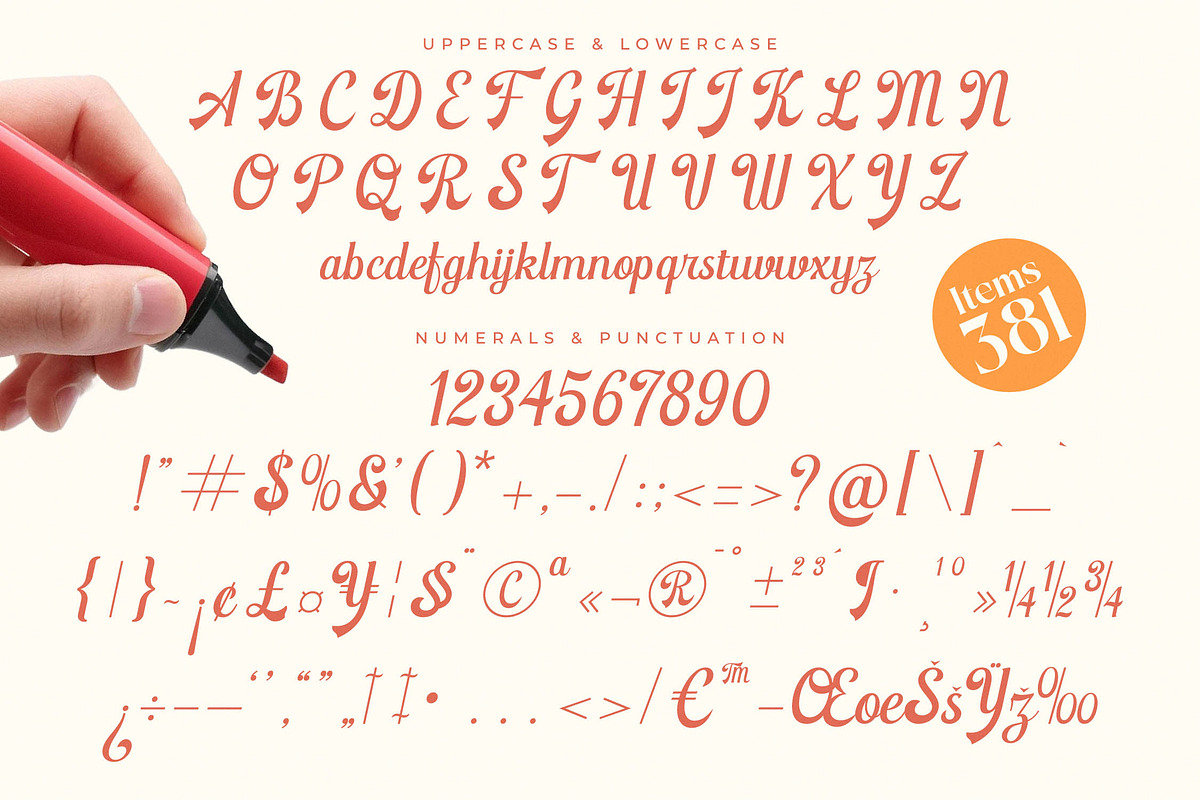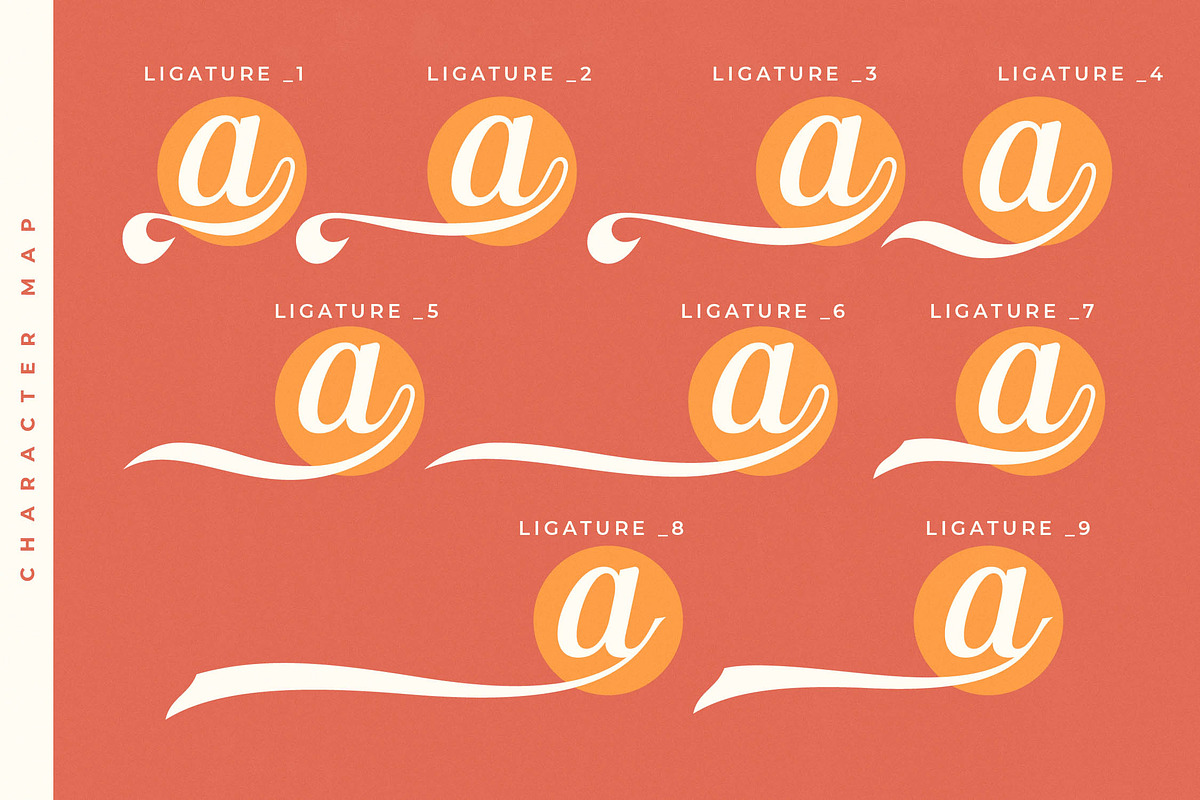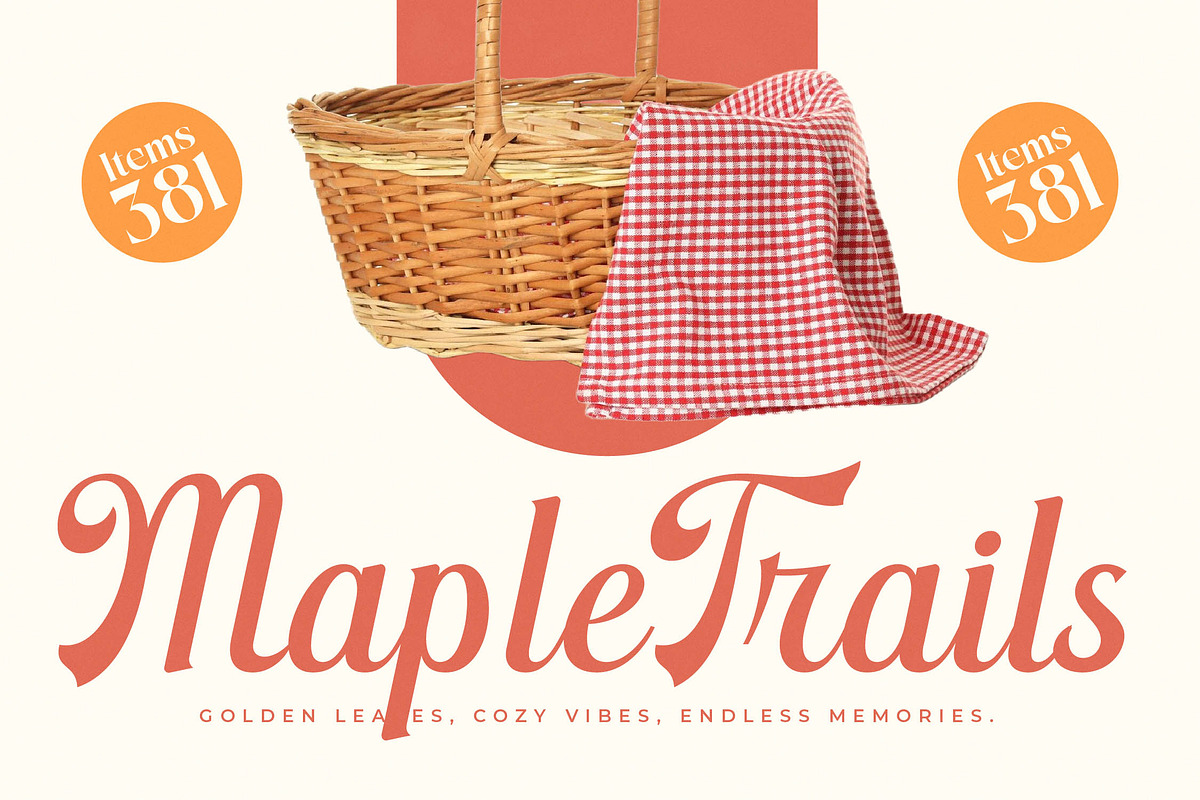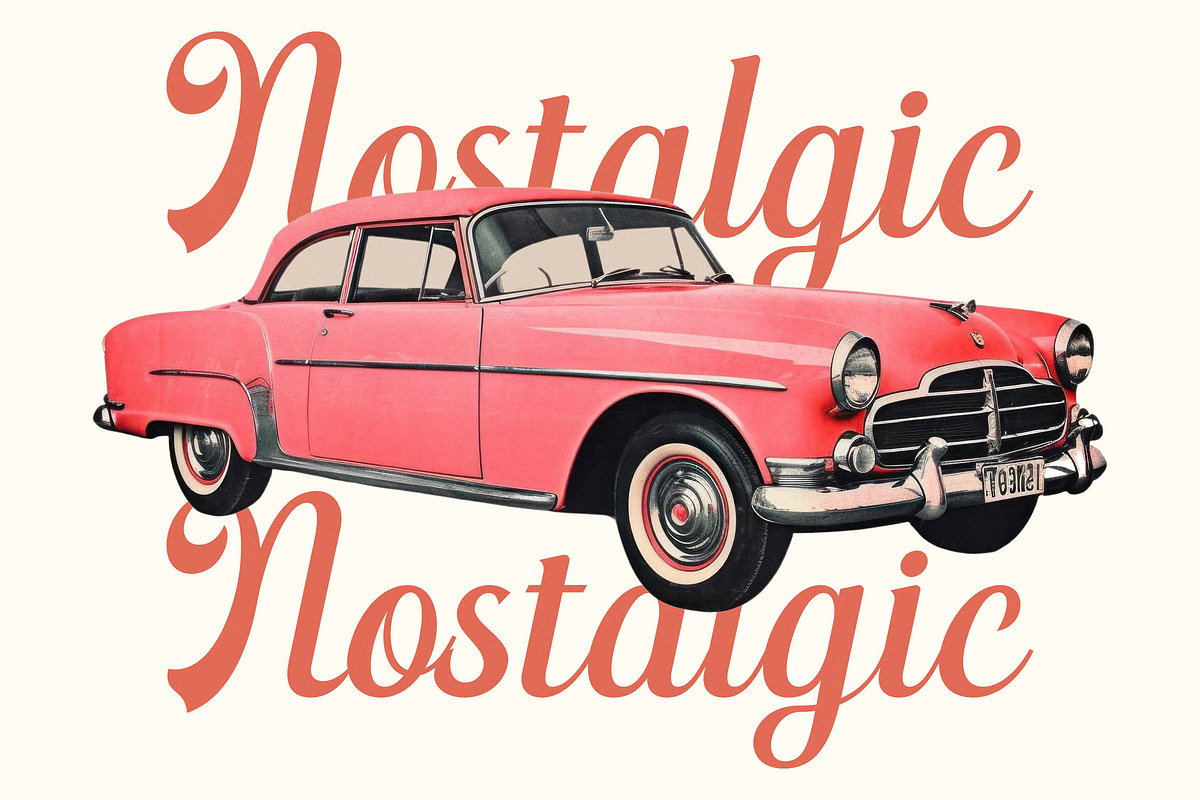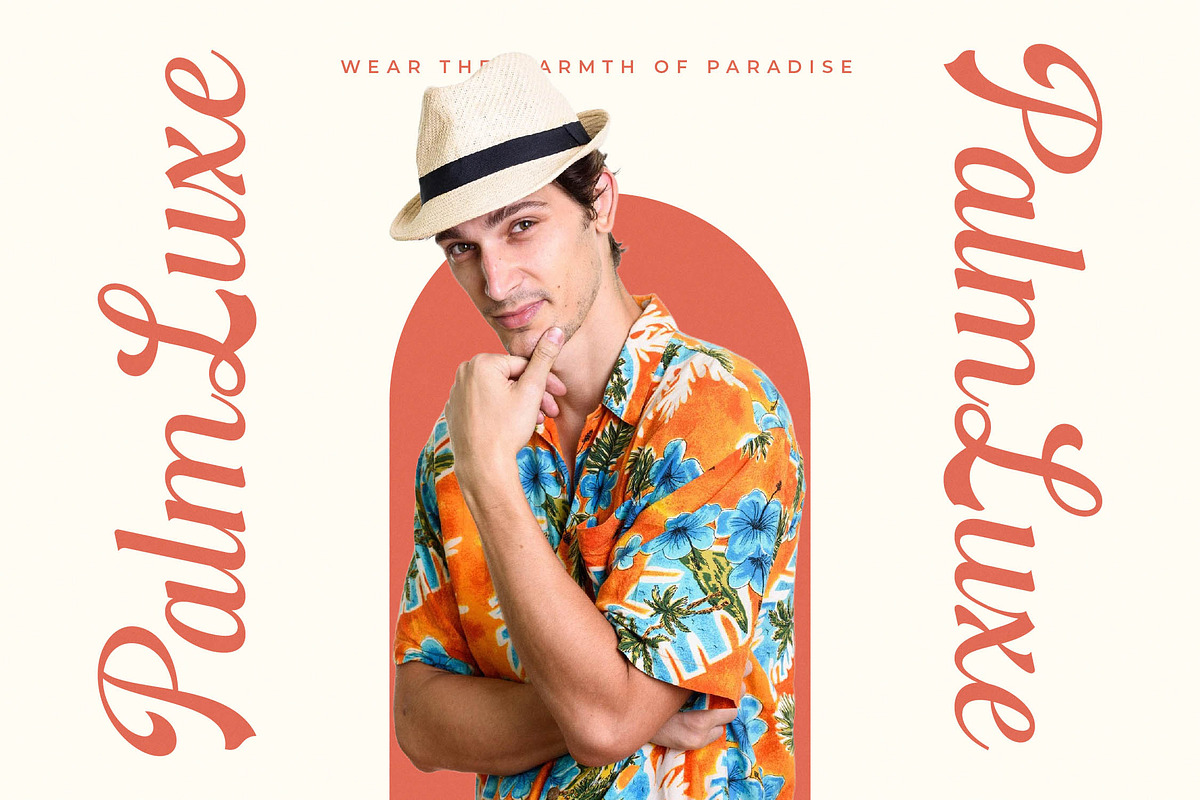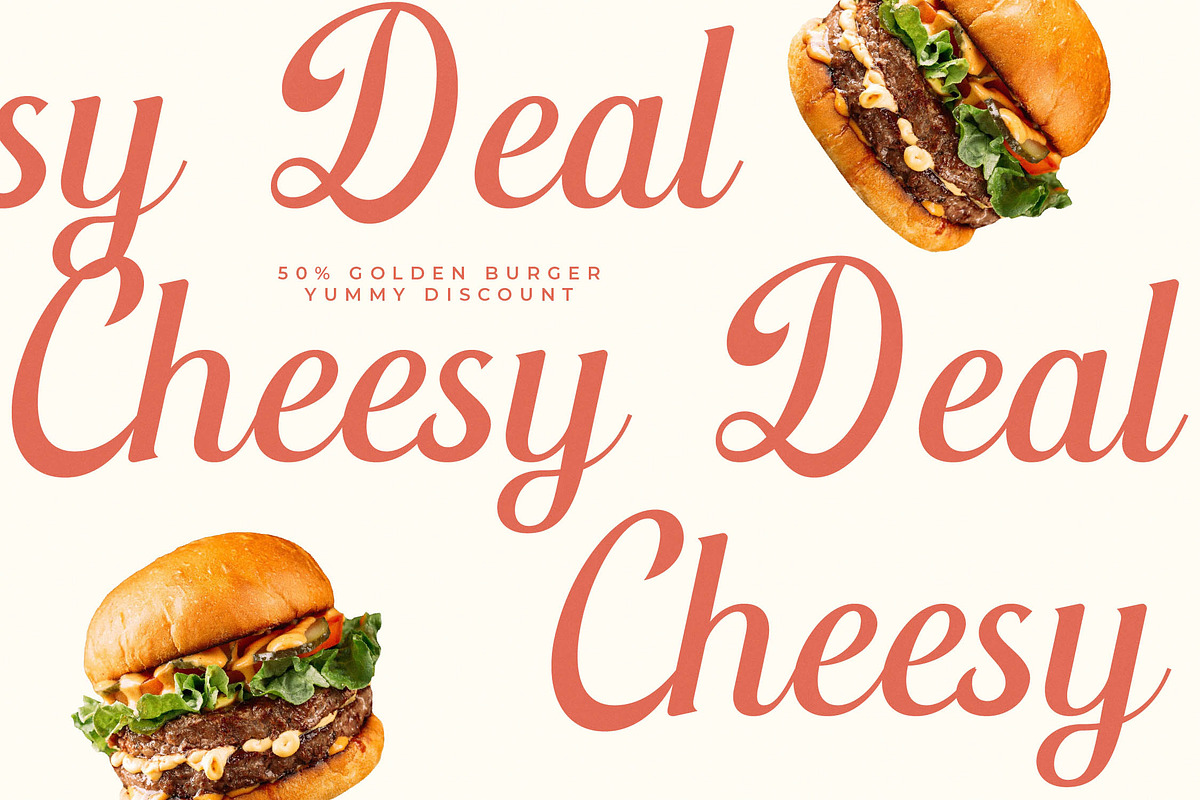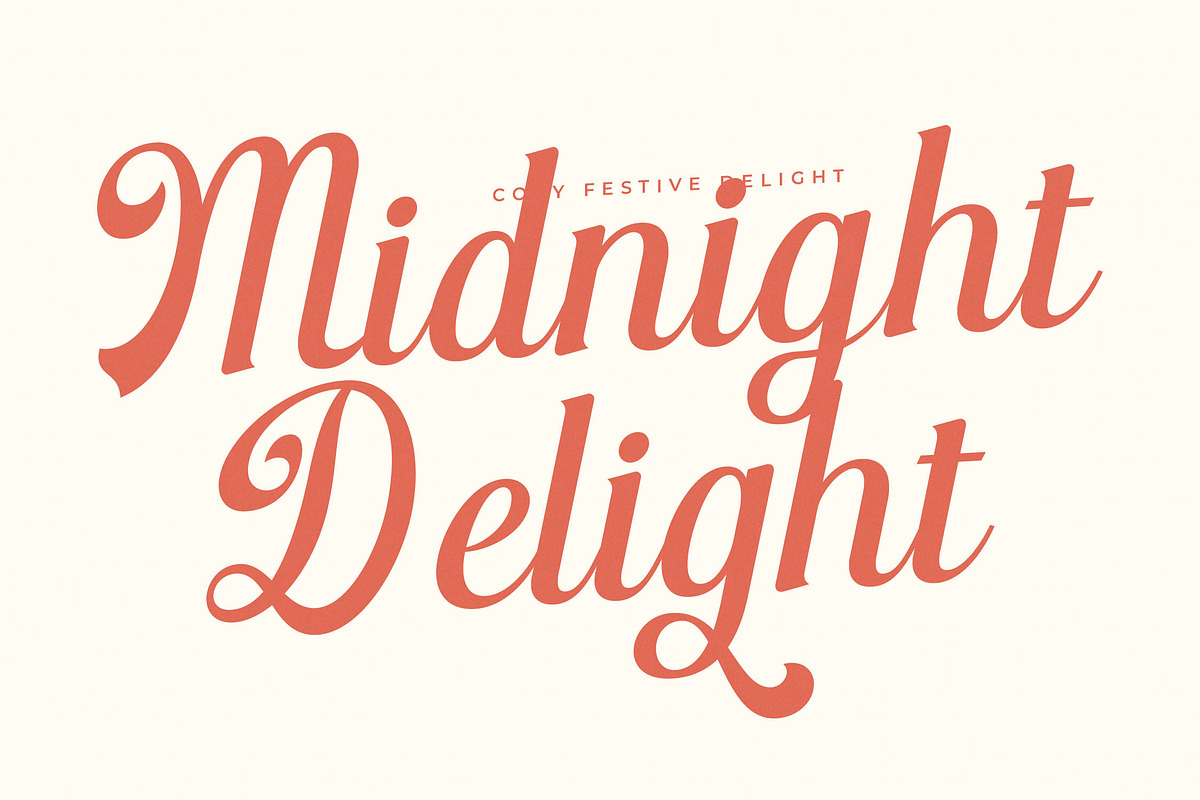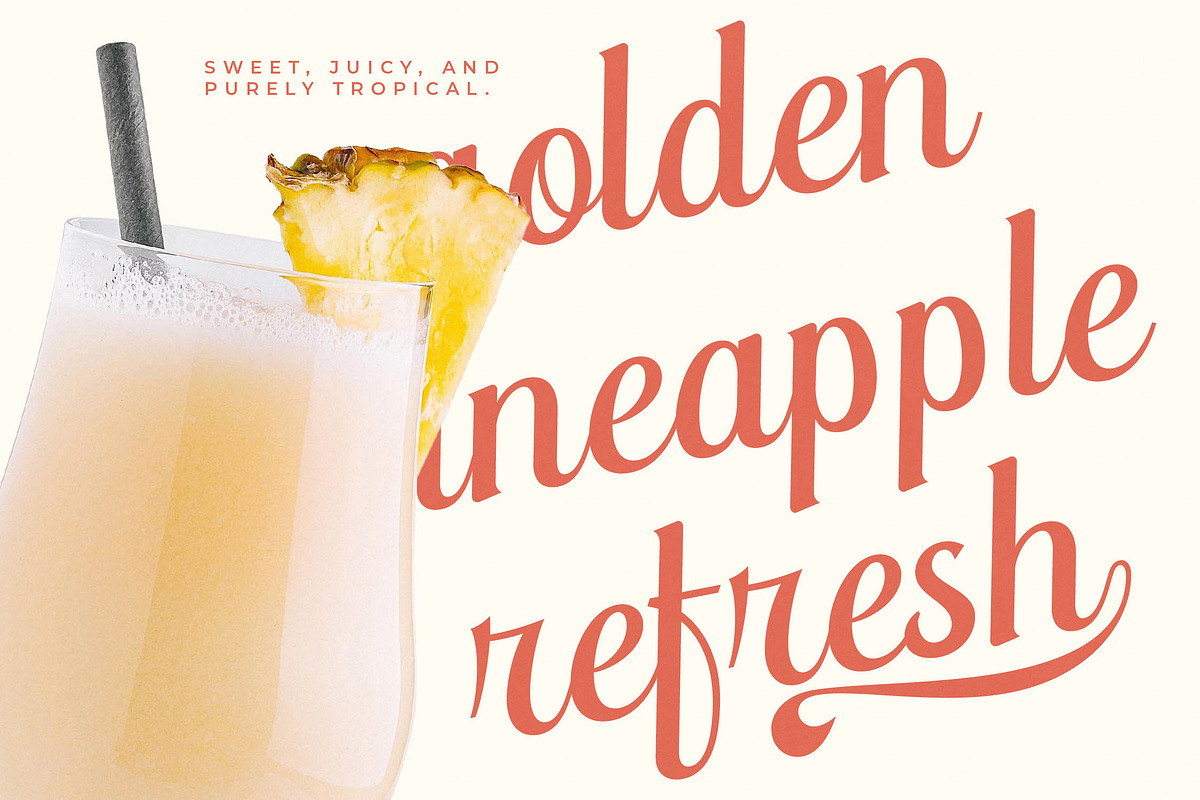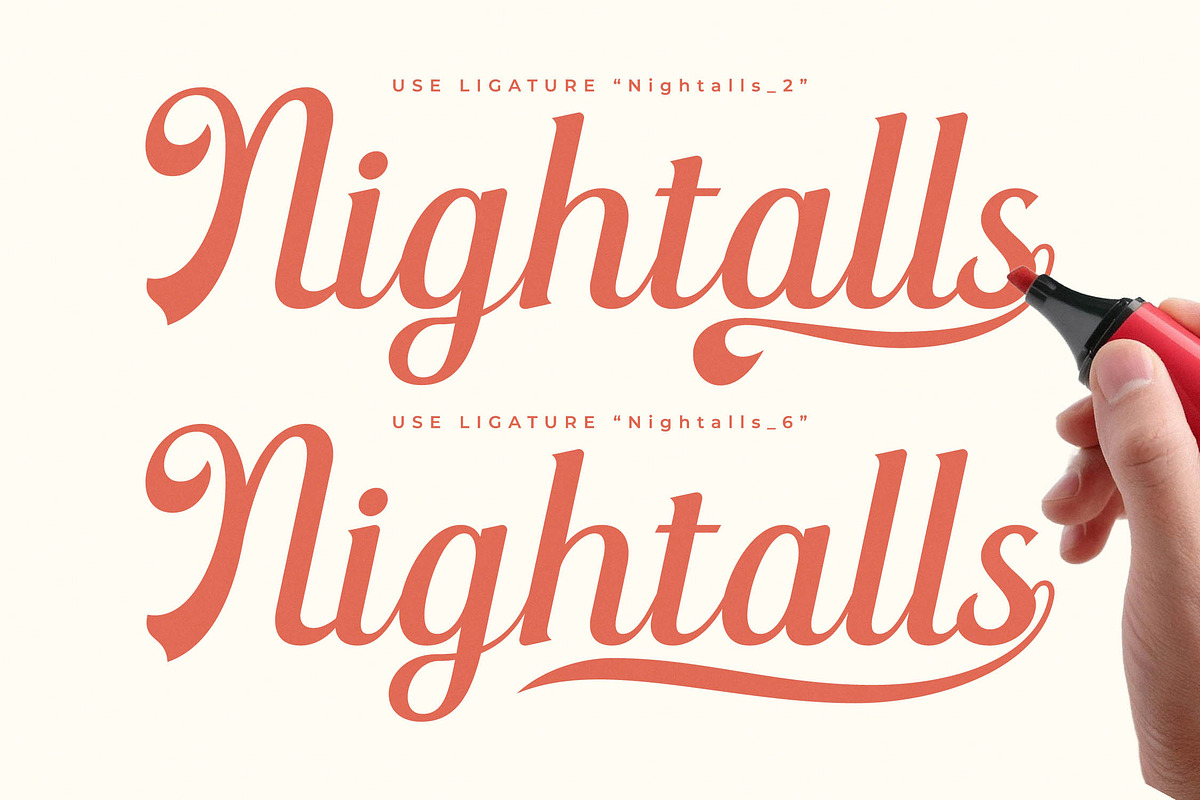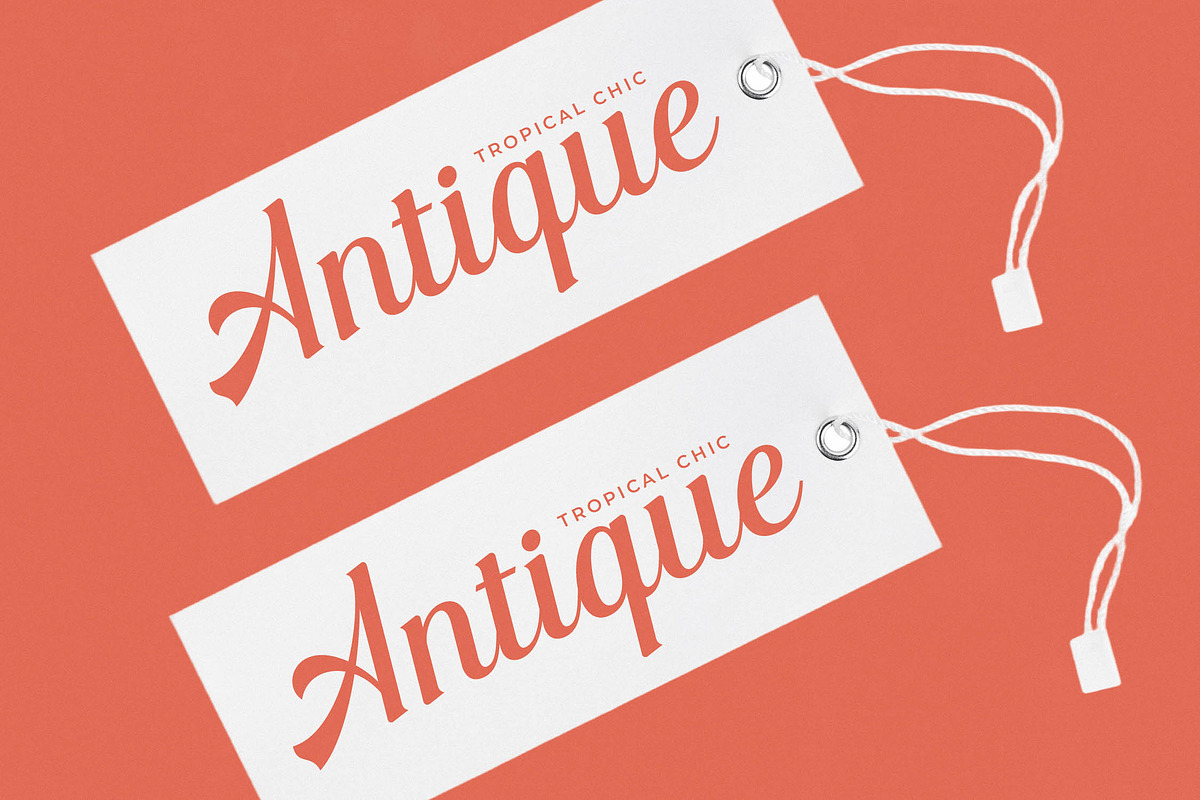
Nightalls Delight Bold Script
Step into a world of fluid elegance and rhythmic charm with Nightalls Delight, a typeface designed to dance across your canvas. This font captures the essence of sophisticated hand-lettering with a bold, contemporary twist that makes every word feel like a curated piece of art.
Inspired by the nostalgic flair of mid-century marker lettering and the crisp precision of high-end boutique signage, this font bridges the gap between vintage warmth and modern luxury. It evokes the atmosphere of a moonlit jazz lounge where every stroke is intentional and every curve tells a story of refined craftsmanship.
This typeface delivers a sophisticated modern serif display vibe through its thick-and-thin transitions, making it a prime choice for luxury typography. With its high-contrast serif influence and polished finishes, it functions as a definitive editorial font that guarantees a lasting branding impact for any high-profile creative project.
Aligning perfectly with the current modern serif trend, this script offers a refreshing alternative to standard layouts. It stands out among editorial display fonts by providing a unique silhouette that champions character-driven typography, ensuring your message is not just read but truly felt by your audience.
From the conceptualization of a unique logo design to the execution of a global branding identity, this font is incredibly versatile. It is the perfect companion for high-end editorial spreads, custom packaging solutions, romantic wedding suites, and avant-garde fashion campaigns that require a touch of human warmth.
Unlock your creative potential with a comprehensive set of 12 ligatures and 59 unique alternates that allow for custom-tailored lettering. The package includes elegant swashes and full multilingual support, including international characters, to ensure your designs resonate across a global stage without limitation.